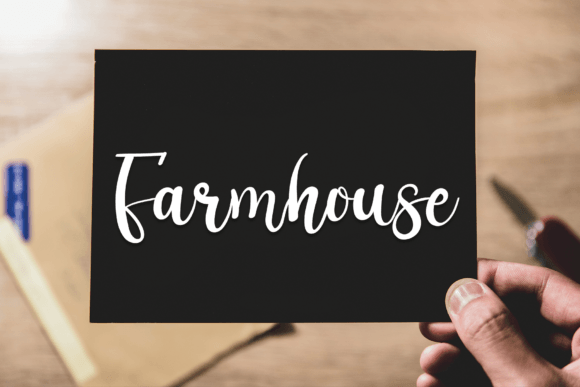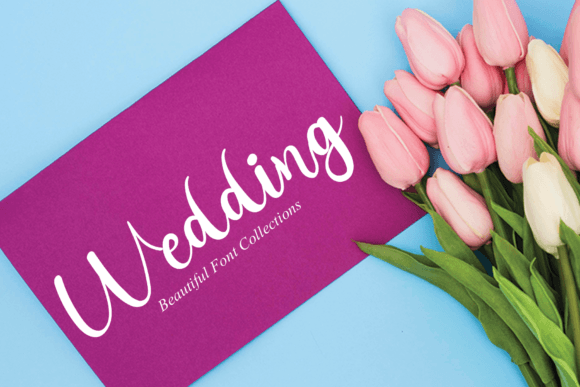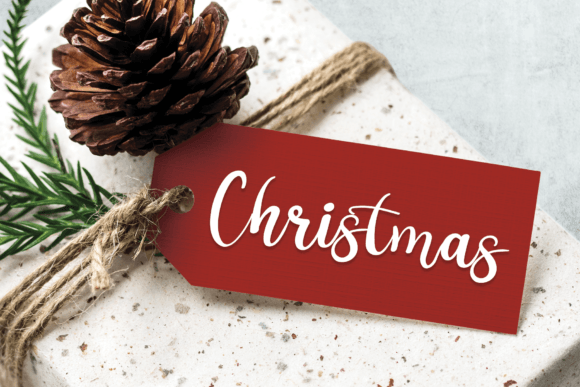
The Ultimate Guide to Black Font: A Stylish and Flowing Handwritten Script Font
I’ll never forget the time I was working on a greeting card project for a client’s anniversary. I had all the design elements ready, but I just couldn’t find the perfect font to complement the romantic theme. That’s when I stumbled upon Black Font, a stylish and flowing handwritten script font that instantly caught my attention. In this article, I’ll share my experience with Black Font, its features, and how to make the most of it in various design platforms.
An Honest Review of Black Font
Black Font has quickly become one of my go-to fonts for various design projects. Here’s what I love about it:
- ✨ Elegant and flowing script style that adds a touch of sophistication to any design
- ✅ Highly versatile and suitable for a wide range of projects, from crafts to digital design and presentations
- 💫 Beautifully crafted letters with a high level of detail and precision
- 🎨 Works well with various color schemes and design elements
While Black Font is an excellent font, it’s not without its quirks. Here are a few limitations to keep in mind:
- 🤔 May not be the best choice for body text or long paragraphs due to its script style
- ⚠️ Some users may find the font a bit too ornate for certain design projects
The Backstory of Black Font
Black Font was designed by a team of typographers who wanted to create a font that would evoke the feeling of elegance and sophistication. The font was inspired by traditional calligraphy and handwriting techniques, with a modern twist. The designers aimed to create a font that would be versatile and suitable for a wide range of design projects.
| Font Name | Black Font |
| What is Black Font? | Black Font is a stylish and flowing handwritten script font designed for a wide range of design projects. |
| Is Black Font suitable for body text? | No, Black Font is best used for headings, titles, and short paragraphs due to its script style. |
| Is Black Font available in different languages? | Yes, Black Font supports multiple languages, but the availability of certain characters may vary. |